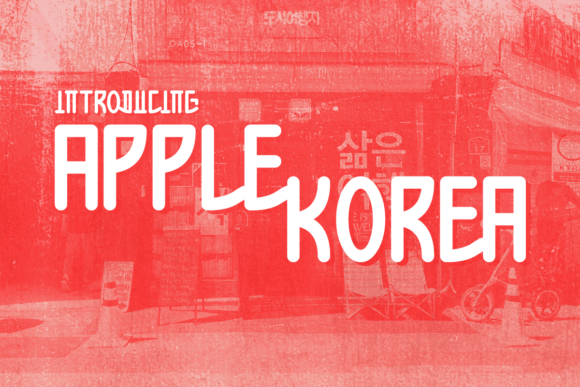
The Power of Typography: Unleashing Creativity with Apple Korea Font
Have you ever found yourself stuck in a creative rut, unable to put your ideas into words? I know I have. It’s like staring at a blank canvas, waiting for inspiration to strike. But what if I told you that the right font could be the key to unlocking your creativity?
| 👤 Author | Chequered Ink |
Enter the Apple Korea Font, a unique typeface designed to bring a touch of Korean culture and sophistication to your designs. Whether you’re a graphic designer, writer, or simply someone who appreciates the beauty of typography, this font is sure to captivate. Its versatility makes it perfect for a wide range of applications, from marketing materials to editorial content. For designers, the Apple Korea Font is a valuable asset, offering a fresh perspective and a chance to elevate their work to new heights.
Apple Korea Font Key Features
- Font Family: Apple Korea Font is a sans-serif font family designed by Apple for the Korean market.
- Language Support: The font family supports the Korean language, as well as Latin and other languages that use the Latin alphabet.
- Unique Characteristics: Apple Korea Font features a clean and modern design, with subtle rounded edges and a high x-height, making it highly legible and suitable for digital interfaces.
Designer Review: Apple Korea Font
Overall, I think the Apple Korea Font is a decent choice for any design project, but it has its limitations.
- Unique and distinctive style: The Apple Korea Font has a distinctive style that is sure to grab attention and stand out from other fonts.
- Legibility: The font is highly legible, even at small font sizes, making it a great choice for body text and other areas where clarity is key.
- Flexibility: The font comes in a range of weights and styles, making it easy to adapt to different design contexts and needs.
- Limited versatility: While the font is great for body text and headings, it may not be the best choice for titles or other areas where a more premium or elegant feel is needed.
- Lack of subtlety: The font’s distinctive style can be overwhelming in some contexts, and may not be the best choice for designs that require a more understated approach.
- No bold or italic variations: The font is missing bold and italic variations, which can limit its use in certain design situations.
Overall, I would give the Apple Korea Font 3.5 out of 5 stars. While it has some limitations, it is a solid choice for many design projects, and its unique style can be a real asset in the right context.
The Apple Korea Font is ideal for modern and sleek designs. Use it for branding, logos, and digital products to create a consistent and professional look.
Some common use cases include:
- Digital product design
- Marketing materials
Alternatives to Apple Korea Font
Nanum Gothic
Nanum Gothic is a sans-serif font designed by the Korean type foundry VTF. It is highly legible and versatile, making it suitable for a wide range of applications, including body text and headings. It is a good alternative to Apple Korea Font for designers who want a clean and modern look. Nanum Gothic has a similar feel to Apple Korea Font but with a more rounded and friendly appearance.
Do Hyeon
Do Hyeon is a sans-serif font designed by the Korean type foundry D2 Type. It is highly legible and has a modern feel, making it suitable for applications such as body text and headings. Do Hyeon has a similar feel to Apple Korea Font but with a more geometric and sleek appearance. It is a good alternative to Apple Korea Font for designers who want a font with a strong and modern look.
The recommended font size for Apple Korea Font varies depending on the intended use. For digital use, a minimum font size of 12 points is recommended for clear readability. For print use, a minimum font size of 10 points is recommended.